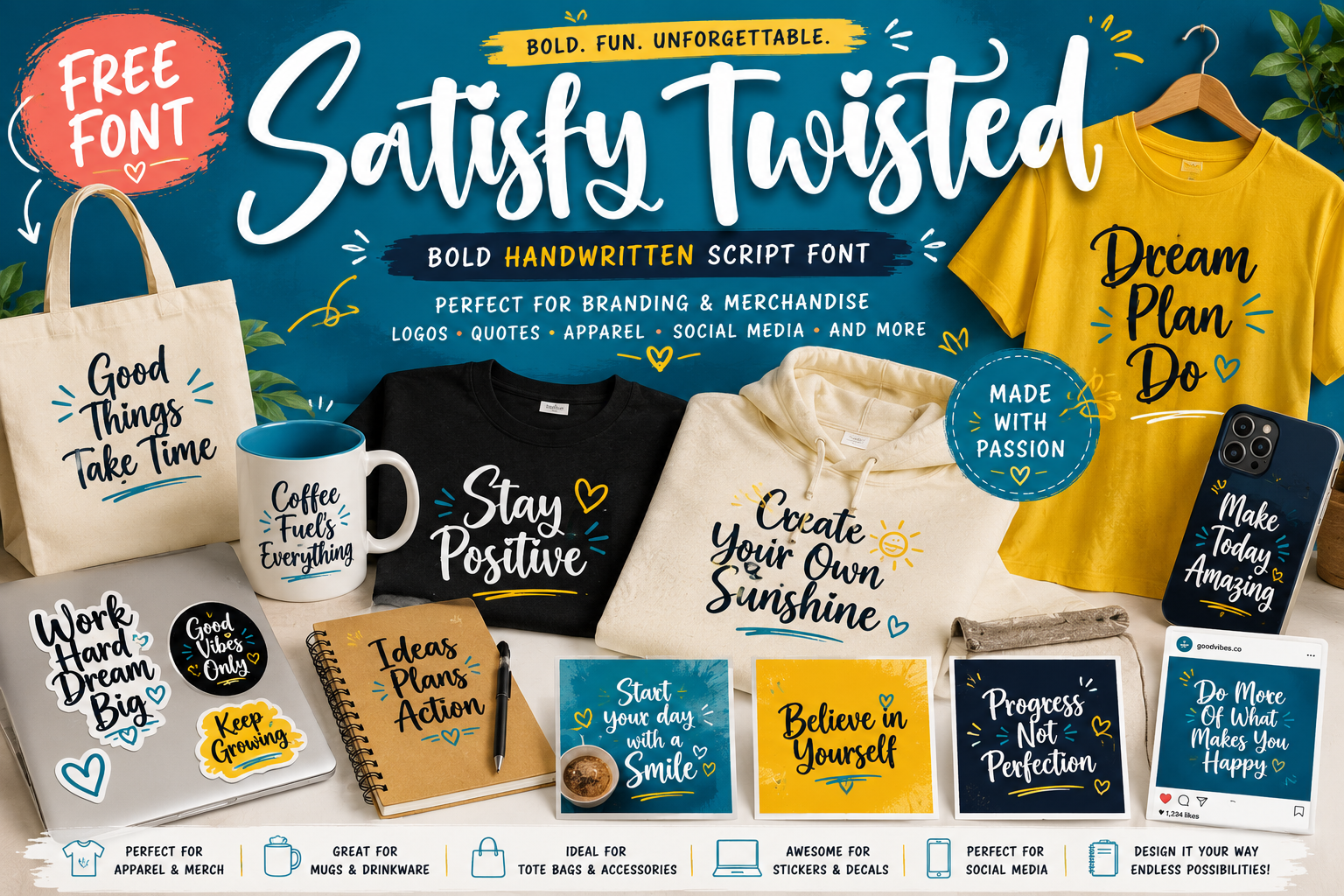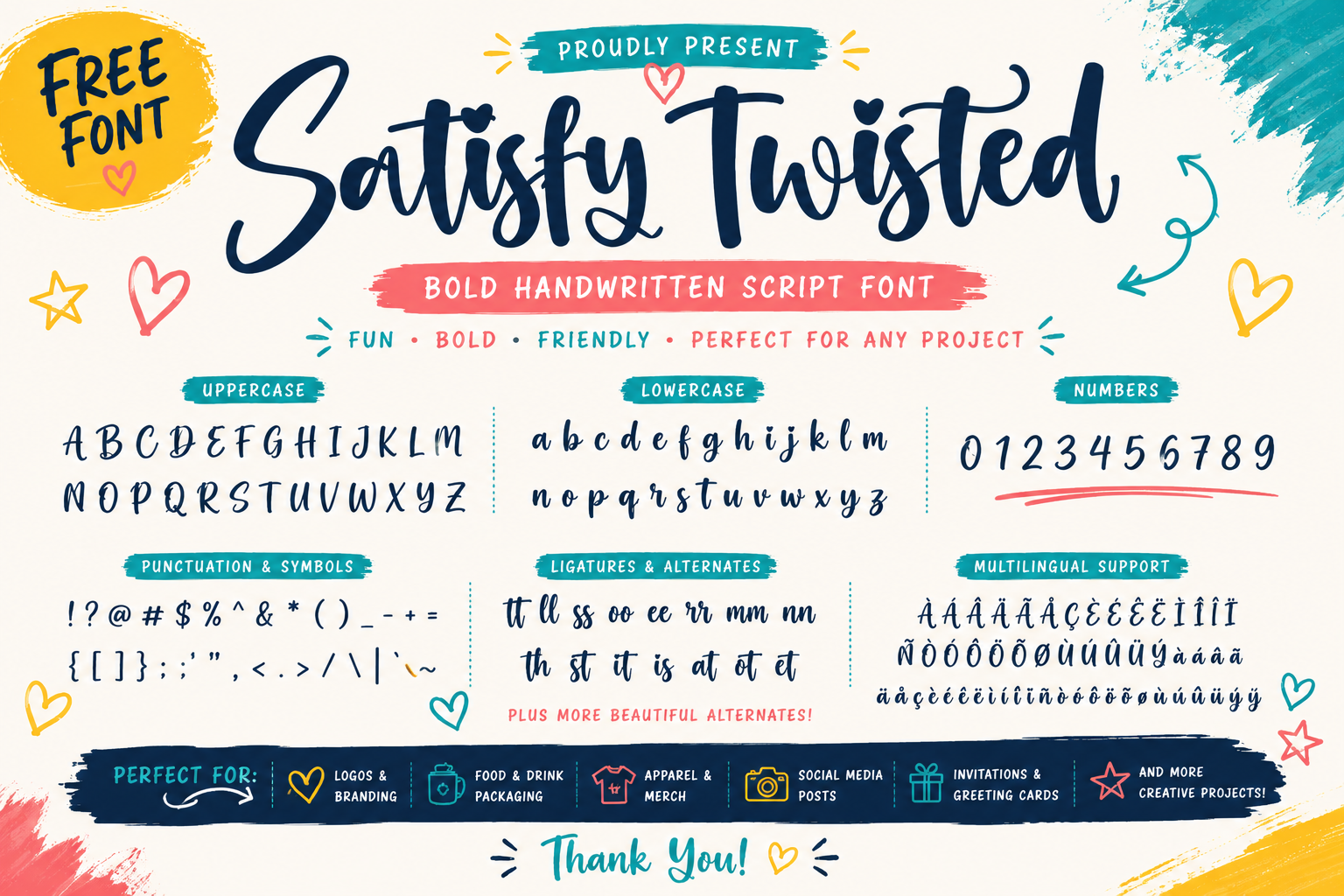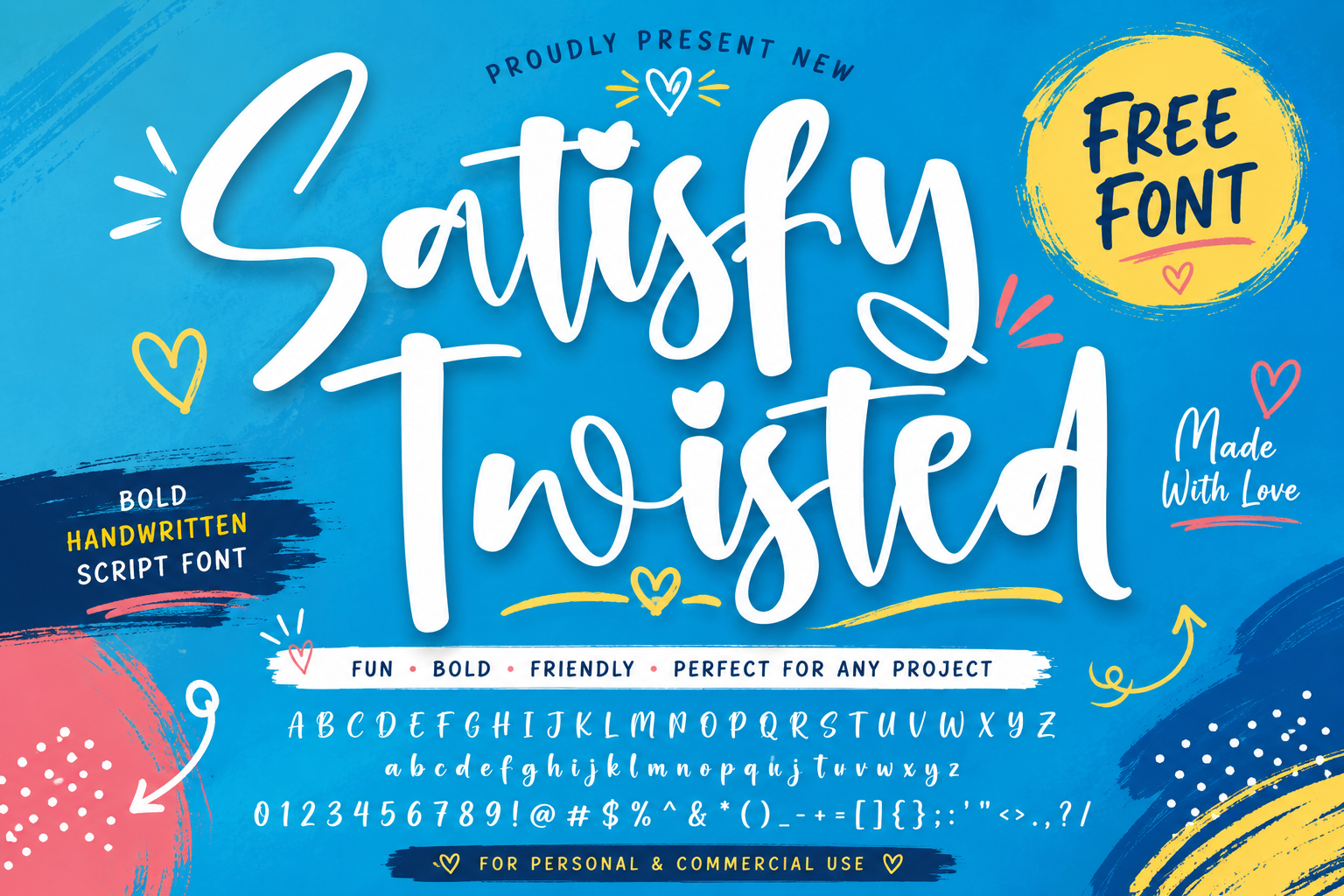
SatisfyTwistedFontbyIntegritypeStudio
- Satisfy Twisted is a bold handwritten script font with expressive brush strokes and a modern, energetic style. Designed to make your typography stand out, it combines smooth curves, natural lettering, and stylish details to create eye-catching designs,Featuring ligatures, alternates, and elegant swashes, Satisfy Twisted gives your text an authentic hand-lettered look, making it ideal for branding, packaging, merchandise, and creative projects. Perfect For
- Font Features
- Bold handwritten script style,Natural brush lettering,Ligatures, alternates & swashes,Uppercase & lowercase letters,Numbers & punctuation,PUA encoded characters,65+ language support,Easy installation,OpenType features